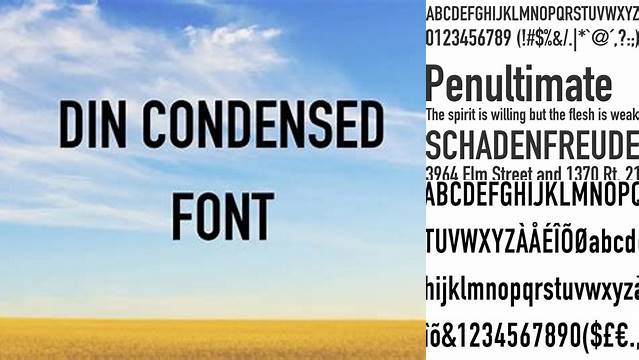
Alright folks, let's dive into the world of fonts! Specifically, we're going to talk about the amazing DIN Condensed VF Demi Bold font and how you can snag a free download. This font is a real workhorse – it's clean, it's modern, and it packs a punch. Whether you're a graphic designer, a student, or just someone who likes to make things look good, understanding and utilizing the DIN Condensed VF Demi Bold font can seriously level up your game. We'll cover everything from where to download it safely to how to use it effectively in your projects. So, buckle up, because we're about to get font-tastic!
DIN Condensed VF Demi Bold Font: An Introduction
So, what exactly is the DIN Condensed VF Demi Bold font? Simply put, it's a specific style of the DIN font family, known for its industrial and utilitarian aesthetic. DIN, which stands for Deutsches Institut für Normung (German Institute for Standardization), was originally designed in Germany for standardization purposes, particularly for use in traffic signs and technical documentation. Its clean lines and simple shapes made it highly legible, even from a distance or in poor conditions. The Condensed part refers to the font's narrower width, making it ideal for fitting more text into a limited space. Demi Bold indicates a weight that is slightly heavier than a regular bold, providing a strong visual impact without being overly heavy. This combination makes the DIN Condensed VF Demi Bold font a versatile choice for a wide range of design projects. Think of it as the perfect blend of functionality and style – a font that's both easy on the eyes and gets the message across loud and clear. The font's inherent characteristics make it well-suited for headlines, subheadings, and any text that needs to grab attention. It's a go-to for designers seeking a modern, authoritative feel. Its ability to convey information clearly while maintaining a stylish appearance is why the DIN Condensed VF Demi Bold font has gained popularity. When you use this font, you're not just typing words; you're making a statement.
Let's be honest, this font family has been around for a while. It's a classic, and for good reason. Its enduring appeal is a testament to its design, which has stood the test of time. The DIN Condensed VF Demi Bold font isn't just a font; it's a design tool that empowers you to create visually striking content. Its legacy and continued use by designers worldwide highlights its adaptability and importance. Its timeless design and enduring popularity make it a true classic in the world of typography. Its appeal extends across various design applications, from websites to print materials, and everything in between. The DIN Condensed VF Demi Bold font is far more than just a collection of characters; it is a language, a tool for visual communication. The versatility of the DIN Condensed VF Demi Bold font shines through in its various applications, from branding and corporate communications to editorial design and web layouts. From logos to billboards, you can find this font in action.